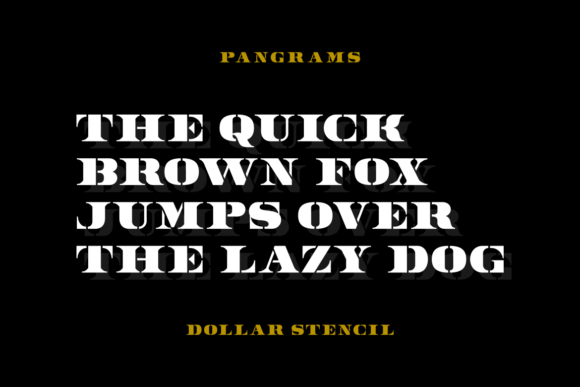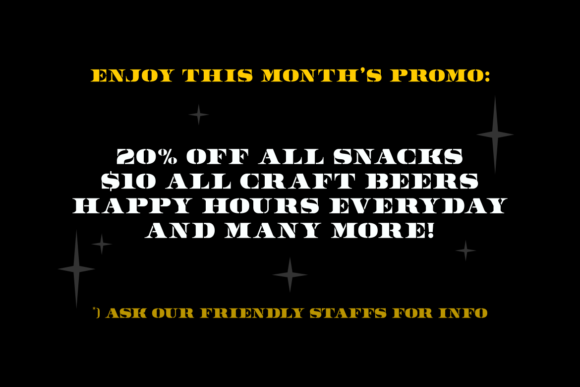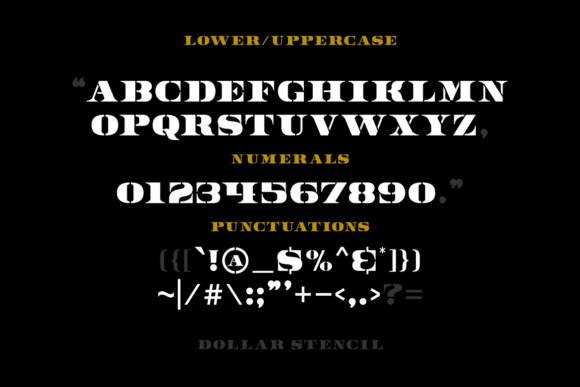
The Ultimate Guide to Dollar Stencil Font: Elevate Your Designs with a Classic Touch
I’ll never forget the time I was working on a vintage-inspired branding project for a client, and I was struggling to find the perfect font to give it that authentic feel. The client wanted something that screamed “classic” and “sophisticated,” but I was coming up blank. That’s when I stumbled upon the Dollar Stencil font, and it was love at first sight! 💫 In this article, I’ll share my experience with this amazing font, its features, and how to make the most of it in your designs.
An Honest Review of Dollar Stencil Font
What I Love About Dollar Stencil Font
- ✨ Inspired by banknotes: The font’s unique design, inspired by banknotes, adds a touch of elegance and sophistication to any project.
- ✅ Serif perfection: The serif details in Dollar Stencil font make it perfect for classic and vintage designs that require a bit of flair.
- 💯 Versatile: This font can be used for a wide range of projects, from logos and branding to invitations and packaging.
While Dollar Stencil font is amazing, there are a few things to keep in mind: 🤔
- ⚠️ Limited use in digital media: Due to its intricate design, Dollar Stencil font may not be the best choice for body text in digital media, such as websites or e-books.
- ⚠️ Requires careful kerning: As with any serif font, kerning is crucial to ensure that the text looks polished and professional.
- Experiment with OpenType features, such as ligatures and stylistic alternates, to add more flair to your text.
- Explore the font’s glyphs and OpenType features, such as swashes and alternates, to add visual interest to your text.
The Backstory of Dollar Stencil Font
Legend has it that Dollar Stencil font was created by a designer who was fascinated by the intricate details of banknotes. They spent countless hours studying the typography and design elements of various currencies, eventually distilling their findings into this unique font. 💸 While the story may be fictional, the font’s inspiration is undeniable.
| Font Name | Dollar Stencil Font |
| Author | Fontdation |
| What is Dollar Stencil font inspired by? | Banknotes and currency typography. |
| Is Dollar Stencil font suitable for digital media? | While it can be used in digital media, it may not be the best choice for body text due to its intricate design. |
| Are there any OpenType features in Dollar Stencil font? | Yes, including ligatures, stylistic alternates, and glyphs. |
Dollar Stencil font is a timeless addition to any design library. Its unique blend of classic elegance and industrial flair makes it perfect for a wide range of projects. With its versatility, OpenType features, and stunning design, it’s a must-have font for designers, crafters, and creative hobbyists alike. 💫